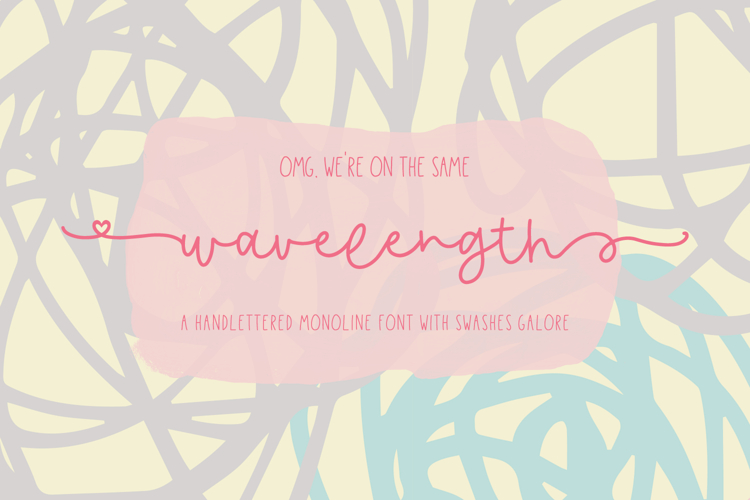
Wavelength Script
We’re totally on the same wavelength, right? Wavelength Script + YOU are a match made in heaven - this bouncy, monoline cursive font is the perfect addition to your font collection. Use it for logo design, social media, or Valentine’s Day / love-themed projects - mix & match swash options, or just go regular - it’s sure to be the adorable addition you need!
Wavelength Script is best for:
- social media graphics or quote graphics
- logos + branding with a cute, feminine aesthetic
- crafting projects with your Cricut or Silhouette - Wavelength has a super smooth edge perfect for vinyl cutting or SVG design
- initials-style logos with swash accents
- website design + website accents - think travel blogs, fashion blogs, & more
- 208 alternate characters consisting of left and right swashes - heart swash, long swash, short curly swash, and loopy swash options available